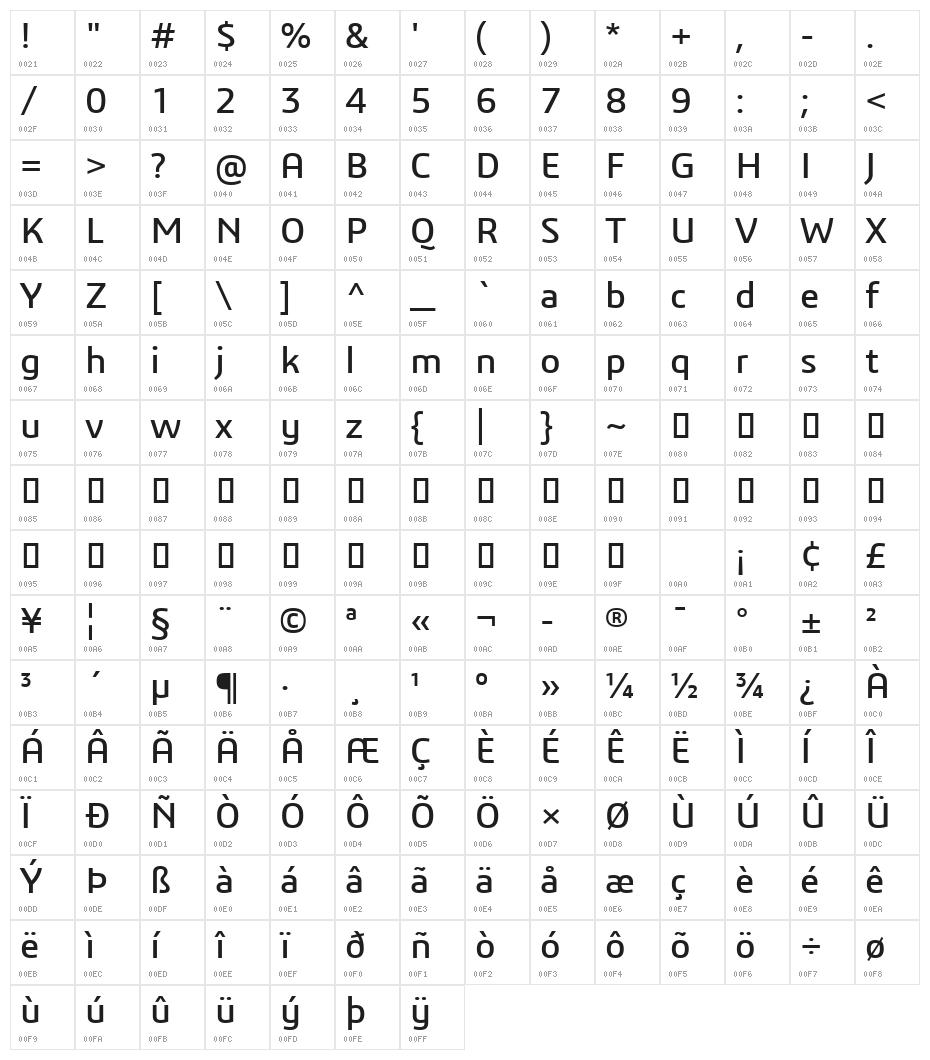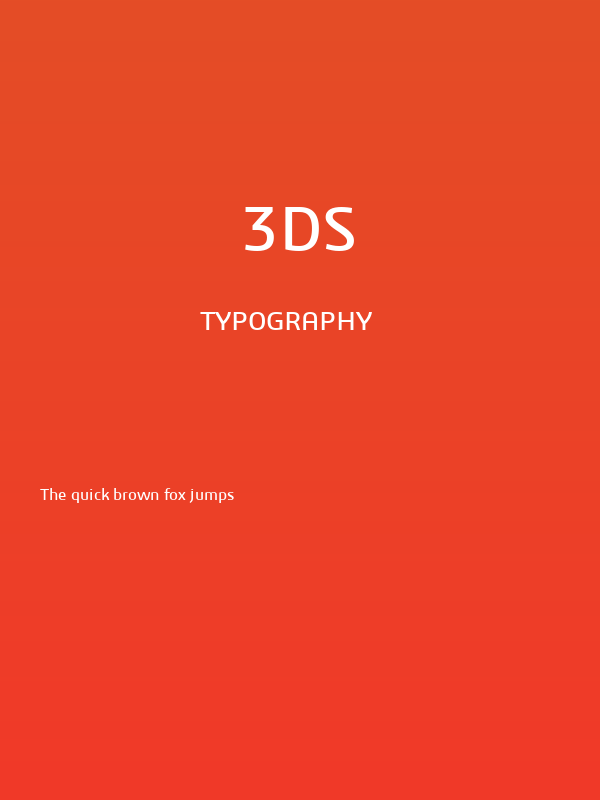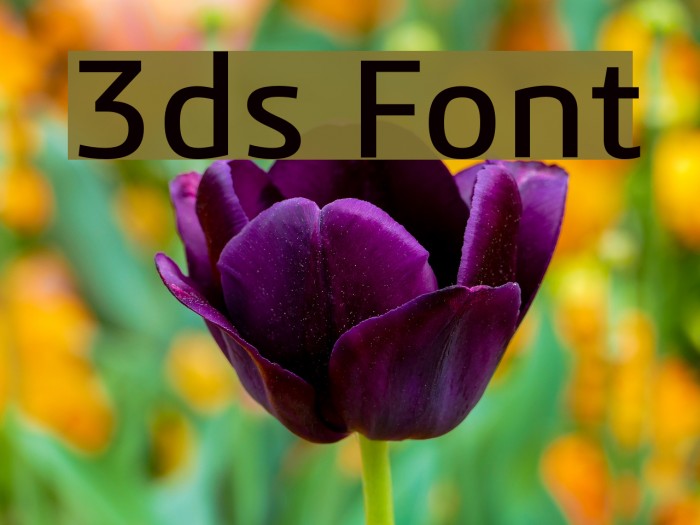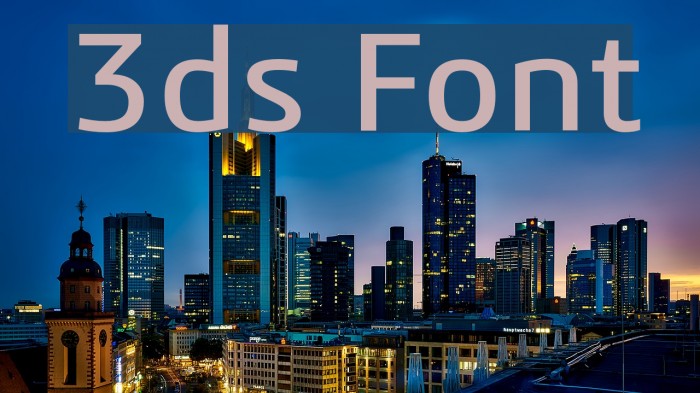
3ds Font
✎ Sans Serif
3ds Description
This font features a clean and modern sans-serif design, characterized by its geometric shapes and uniform stroke widths. The uppercase letters are bold and assertive, with a slight curvature that adds a touch of softness to the overall appearance. The lowercase letters maintain a consistent style, offering a harmonious balance between readability and aesthetic appeal. The numerals are clear and straightforward, making them suitable for various applications. Special characters are well-defined, enhancing the font's versatility. Its simplicity and clarity make it an excellent choice for digital and print media.
| Use Case | Headlines, Body text, Logos |
| Proposed Projects | Ideal for branding, web design, advertising, and editorial layouts. |